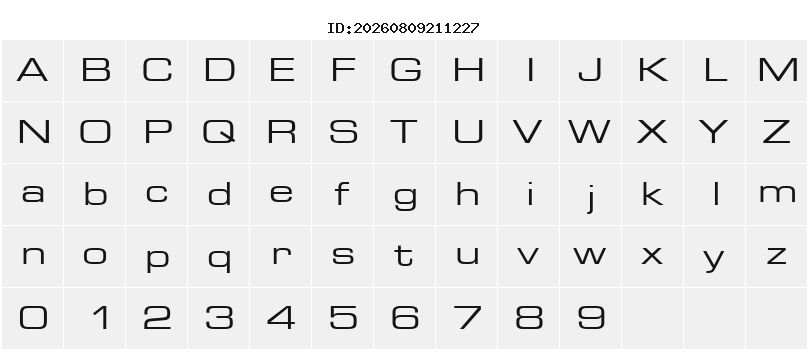
About Palindrome Expanded SSi.ttf
Palindrome Expanded SSi.ttf is a modern, elegant sans-serif font designed for ultimate readability and visual harmony. Perfect for branding, headlines, web design, and print materials.